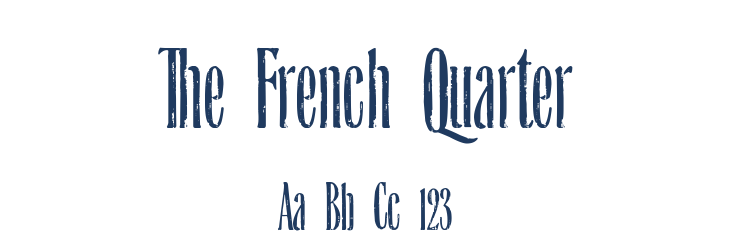
French Font
A bold, distressed font with a rugged, textured appearance.
French Fries Bold Font
A playful script font with smooth, connected letters and a casual, friendly style.
IM FELL French Canon SC Font
A classic serif font with high contrast and elegant serifs, ideal for formal and sophisticated designs.
IM FELL French Canon Roman Font
A classic serif font with high contrast and sharp serifs, exuding elegance and sophistication.
FHA Condensed French NC Font
A bold, condensed font with a vintage yet modern appeal.
French fries Font
An elegant, flowing script font with thin, graceful lines.
French Grotesque Font
Font by Jonathan Paterson
A bold, expressive font with dynamic curves and sharp edges.
Aka-AcidGR-FrenchToast Font
Font by www.aka-acid.com
A playful, whimsical handwritten font with dynamic strokes and artistic flair.
IM FELL French Canon Roman SC Font
A classic serif font with high contrast and elegant serifs, ideal for formal and sophisticated designs.
FHA Nicholson French NCV Normal Font
A bold serif font with strong strokes and modern appeal.
IM FELL French Canon Italic Font
An elegant, italic serif font with medium contrast and classic appeal.
Frenchpress Font
A whimsical, playful font with decorative curls and slender characters.
Le French Font
OldStudioo - Muhammad Ilham - www.fontdraft.com
A delicate and elegant script font with flowing, graceful strokes.
FHA Condensed French Shaded NC Font
A bold, condensed font with a shaded, three-dimensional effect.
Crepes French Font
Font by Graphicfresh
A bold, angular font with a hand-drawn, geometric style.
French_Fries Font
Font by Geronimo
A bold, playful font with rounded, outlined characters and a cartoonish style.
FrenchSugar Font
A whimsical, decorative font with intricate swirls and playful loops.
French Marble Font